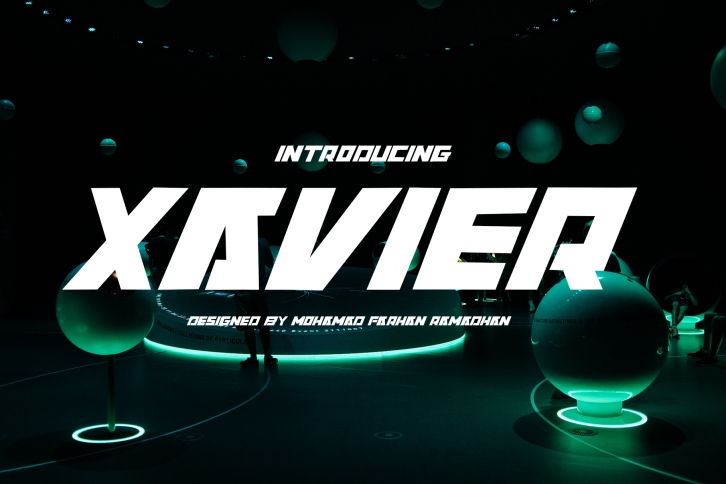
Xavier is a cool and bold display font. It is ideal for projects related to speed, power or both. Add it confidently to your projects, and you will love the results.